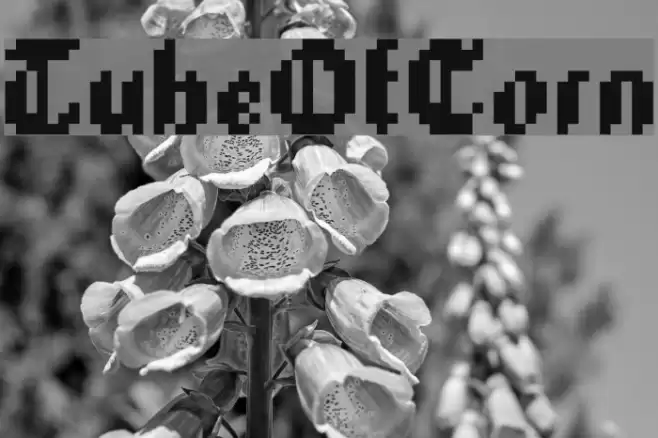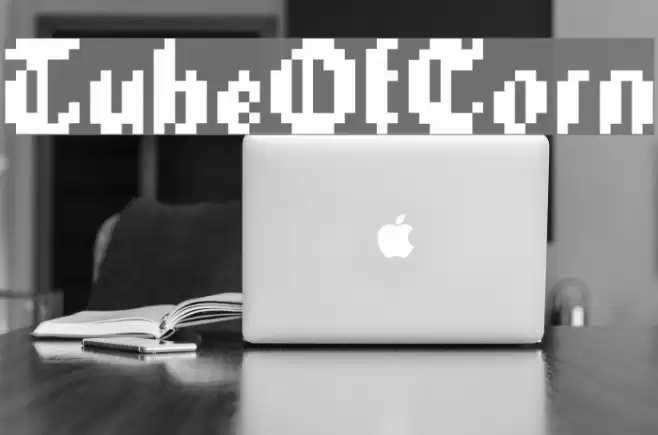
TubeOfCorn Font
TubeOfCorn Description
This font features a bold, pixelated style reminiscent of early digital or video game aesthetics. Each character is constructed with a blocky, grid-like appearance, emphasizing a retro, 8-bit feel. The uppercase letters are distinct with sharp angles and a uniform height, while the lowercase letters maintain a consistent style, offering a cohesive look across the alphabet. Numbers and special characters follow the same design principles, ensuring readability and a playful yet structured appearance. The overall design is both nostalgic and modern, making it suitable for projects that aim to capture a vintage digital vibe.
A bold, pixelated font with a retro, 8-bit digital aesthetic from Uncategorized fonts.
- Proposed Projects: Ideal for video game design, retro-themed posters, digital art, and branding that requires a nostalgic touch.
- Overall Style: Retro, Digital